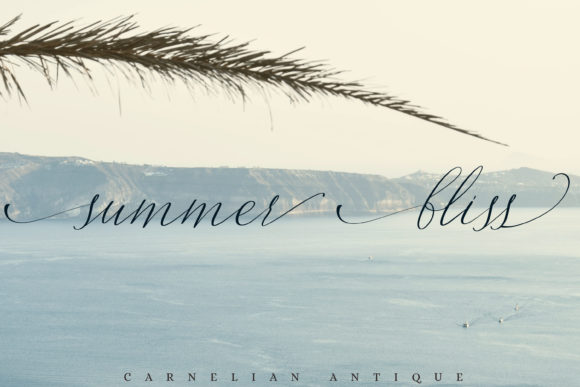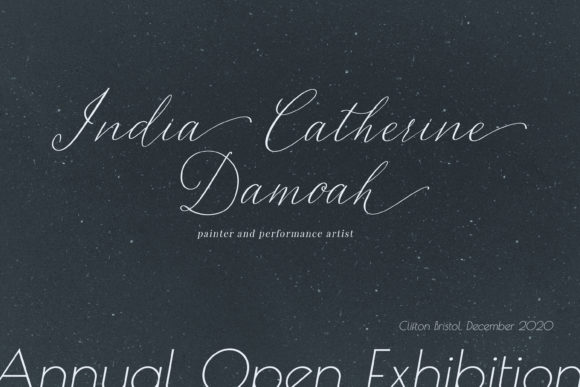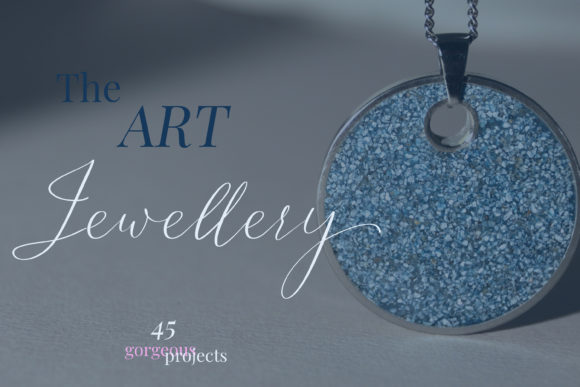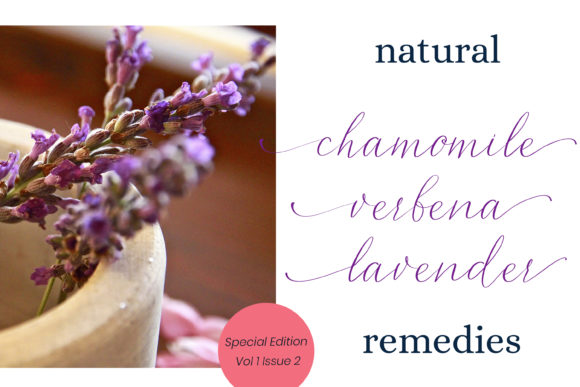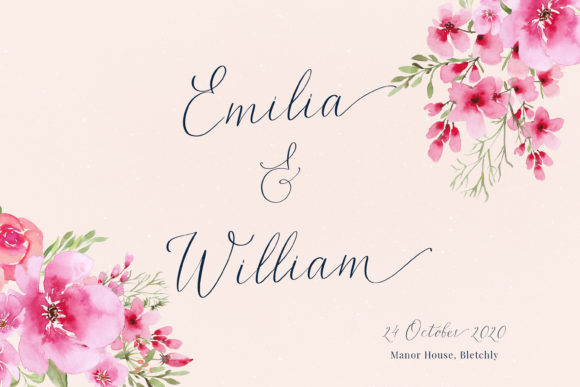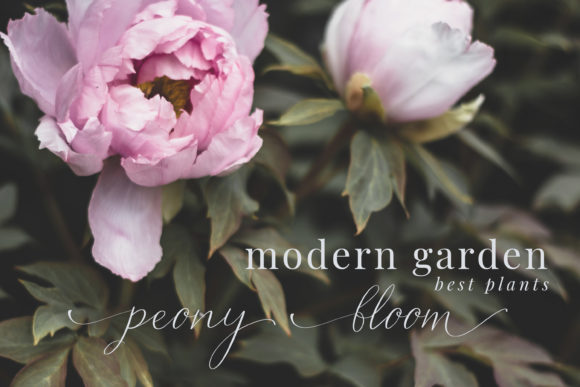
The Elusive Font: A Designer’s Journey with Carnelian Antique
I still remember the project like it was yesterday. I was working on a branding campaign for a luxury boutique hotel, and I needed a font that would convey elegance, sophistication, and a touch of whimsy. I scoured the internet, tried out countless fonts, but nothing seemed to fit the bill. That was until I stumbled upon Carnelian Antique. ✨
It was love at first sight! The effortlessly elegant script with its unique style instantly captured my attention. I knew right then and there that I had found the perfect font for my project. In this article, I’ll share my experience with Carnelian Antique, its features, and how to make the most of it in your design projects.
An Honest Review of Carnelian Antique
- ✨ Elegant and sophisticated: Carnelian Antique exudes luxury and refinement, making it perfect for high-end branding projects.
- ✅ Unique style: The font’s distinctive character set and stylistic alternates ensure that your designs will stand out from the crowd.
- 💫 Versatile: Carnelian Antique works beautifully in a variety of design applications, from logos and headings to body text and quotes.
While Carnelian Antique is an exceptional font, there are a few things to keep in mind: ⚠️
- 🤔 Limited availability of certain characters: Some characters, like ligatures and ornaments, might be limited or require additional setup.
- ⚠️ May require font pairing: Carnelian Antique’s distinctive style might require careful pairing with other fonts to achieve balance and harmony.
A Practical Guide to Using Carnelian Antique
The Backstory of Carnelian Antique
Carnelian Antique was designed by a talented type designer who drew inspiration from ancient scripts and typography. The font’s unique style is a result of meticulous research and craftsmanship. 💡
The designer’s goal was to create a font that would evoke a sense of luxury, sophistication, and elegance, while also being versatile and practical for a wide range of design applications.
Q: What is Carnelian Antique?
A: Carnelian Antique is an elegant script font with a unique style, perfect for luxury branding, packaging, and editorial design.
Q: Is Carnelian Antique suitable for body text?
A: While Carnelian Antique is primarily designed for headings and titles, it can be used for body text in certain contexts, such as luxury publications or high-end branding materials.